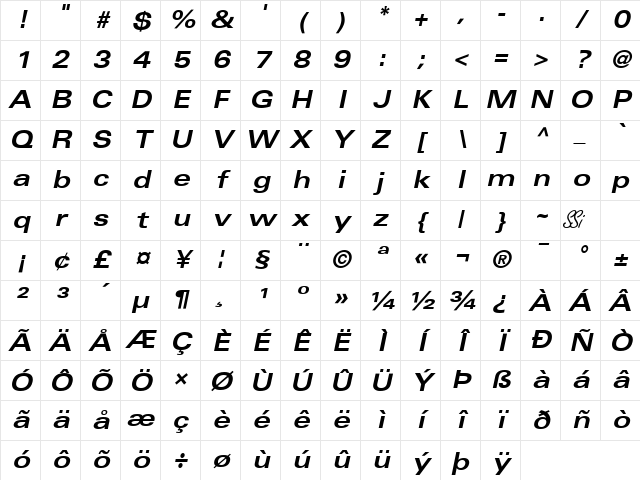
Nova Expanded SSi Bold Expanded Italic
Style: Bold Expanded Italic
Nova Expanded SSi Bold Expanded Italic
Design Context for Nova Expanded SSi
Nova Expanded SSi is a composed and adaptable typeface that performs quietly and consistently across a wide range of design contexts. The slanted form adds forward momentum and visual energy. Its bold stroke weight gives it real presence on the page.
Pro Tip: Use Nova Expanded SSi for emphasis, pull quotes, and subheadings where its slanted energy can add rhythm to the layout.